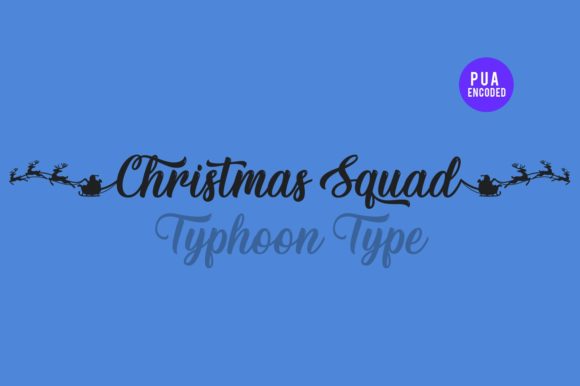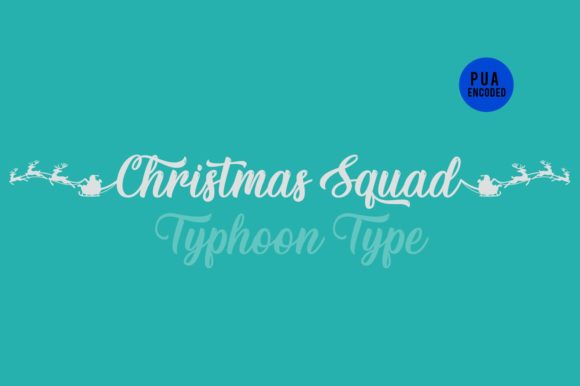
Introducing Christmas Squad Font: The Perfect Addition to Your Holiday Designs
Are you looking for a font that embodies the elegance and charm of the holiday season? Look no further than Christmas Squad Font, a delicate, elegant, and flowing handwritten font that’s sure to elevate your designs to the next level. In this article, we’ll dive into the features and benefits of Christmas Squad Font, and explore how it can be used to create stunning holiday designs.
A Delicate and Elegant Font for the Holiday Season
Christmas Squad Font is a beautifully crafted handwritten font that’s perfect for adding a touch of elegance to your holiday designs. Its delicate and flowing lines evoke the magic and wonder of the holiday season, making it ideal for use in Christmas cards, invitations, and other festive materials.
One of the standout features of Christmas Squad Font is its well-balanced characters. Each letter has been carefully crafted to ensure that it looks beautiful on its own, and also in combination with other letters. This makes it easy to create stunning text-based designs that are sure to impress.
Christmas Squad Font is PUA (Private Use Area) encoded, which means that you can access all of the amazing glyphs and ligatures with ease. This is especially useful for designers and crafters who want to add a personal touch to their designs. With PUA encoding, you can easily access a wide range of special characters, including ligatures, ornaments, and other decorative elements.
Whether you’re creating a festive holiday card or a beautiful piece of wall art, Christmas Squad Font’s PUA encoding makes it easy to add a touch of personality to your design. And with its comprehensive set of glyphs and ligatures, you’re sure to find the perfect characters to match your design style.
Matching a Wide Pool of Designs
One of the benefits of Christmas Squad Font is its versatility. Its elegant and flowing lines make it suitable for a wide range of designs, from traditional holiday cards to modern digital graphics. Whether you’re creating a design for a client or for your own personal use, Christmas Squad Font is sure to match your style.
From rustic and vintage-inspired designs to modern and sleek graphics, Christmas Squad Font is the perfect addition to any holiday design project. Its delicate lines and well-balanced characters make it easy to pair with other fonts and design elements, giving you endless possibilities for creative expression.
Christmas Squad Font is a must-have for designers and crafters who want to create stunning holiday designs. Its elegant lines and well-balanced characters make it perfect for use in a wide range of projects, from digital graphics to handmade crafts.
Whether you’re a professional designer or a hobbyist crafter, Christmas Squad Font is sure to inspire your creativity and help you create beautiful holiday designs. With its PUA encoding and comprehensive set of glyphs and ligatures, you’re sure to find the perfect characters to match your design style.
| Font Name | Christmas Squad Font |
| Author | Typhoon Type™ – Suthi Srisopha |
In conclusion, Christmas Squad Font is a beautiful and elegant handwritten font that’s perfect for adding a touch of charm to your holiday designs. Its delicate lines, well-balanced characters, and PUA encoding make it a versatile and powerful tool for designers and crafters.
- Delicate, elegant, and flowing handwritten font
- Well-balanced characters for beautiful text-based designs
- Perfect for holiday designs, including Christmas cards, invitations, and more
- Suitable for a wide range of designs, from traditional to modern
- Must-have for designers and crafters who want to create stunning holiday designs